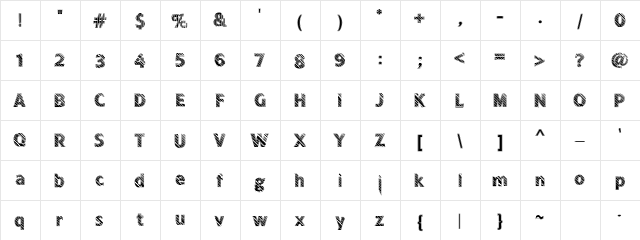
Banded045Bordered Regular Font Preview
Banded045Bordered Regular
Design Context for Banded045Bordered Typeface
Banded045Bordered is a composed and adaptable typeface that performs quietly and consistently across a wide range of design contexts.